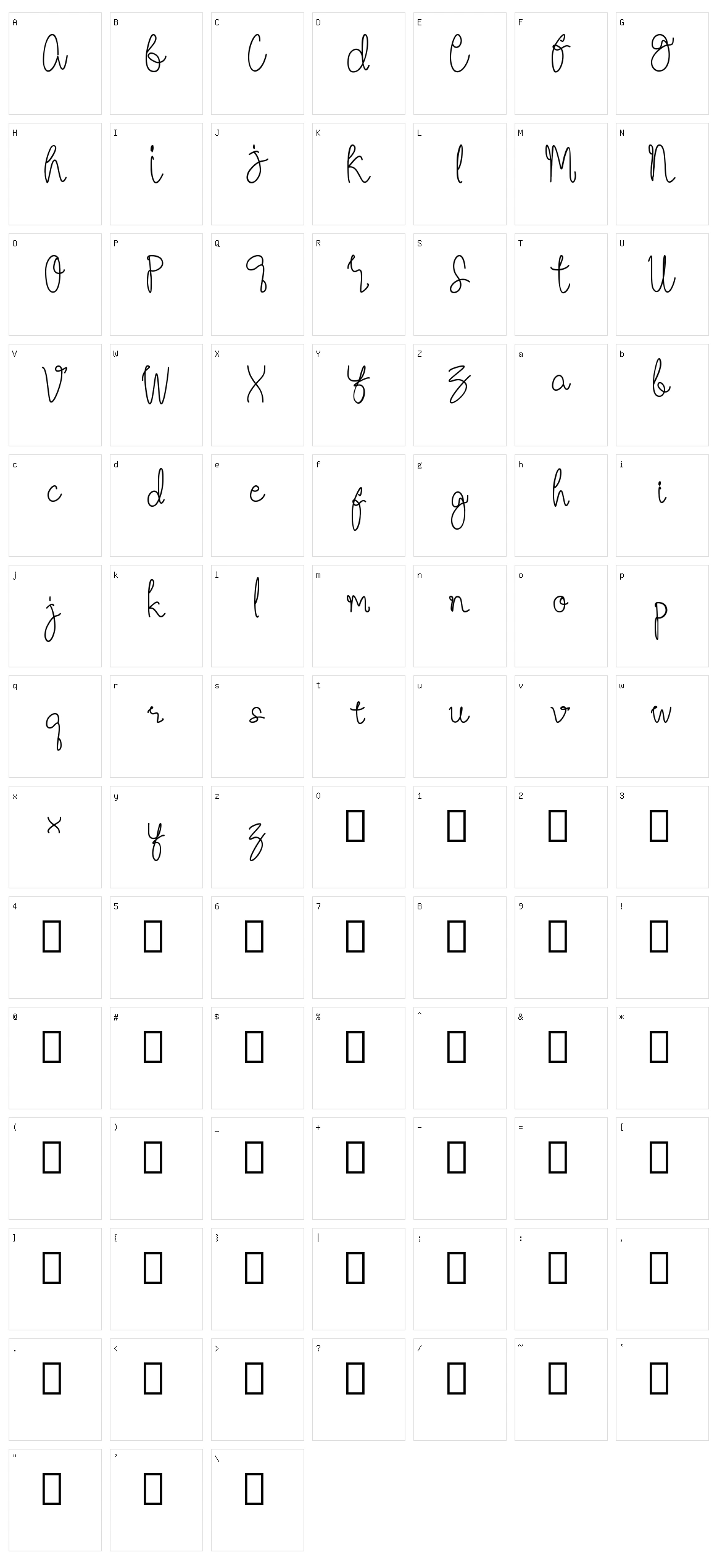
The free font Unusefully is carefully designed by Zkhai Creative, showcasing a thoughtful balance of creativity and usability and falls under the Script font style. When you download the ZIP file, it contains only 20.76 KB of font files, making it lightweight and quick to download. Please review the license details below to understand permitted usage and distribution rights. If license information is not available, we recommend using this font for personal projects only or contacting the author directly for commercial usage permissions.